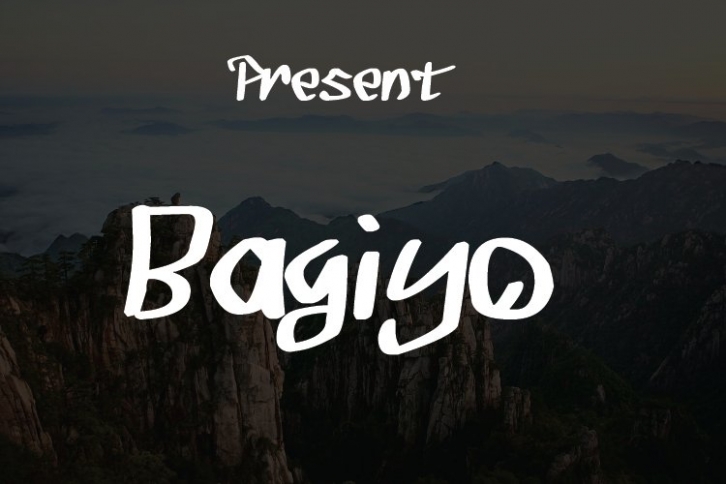
Bagiyo is a trendy and unique font with an authentic style. It was designed by kreatif eric and it's a great choice for creative people who need such a font. It was released on July 12, 2022 and the file size is 19.21 MB. Bagiyo will add an organic vibe to any design idea!